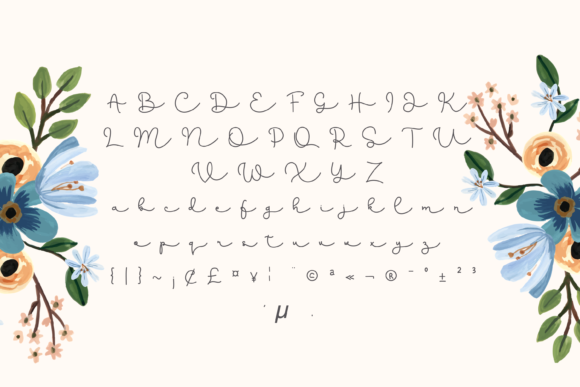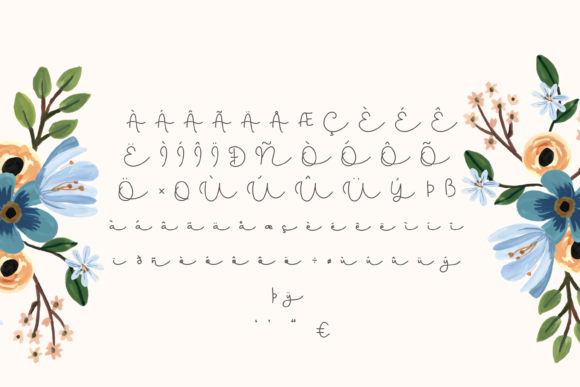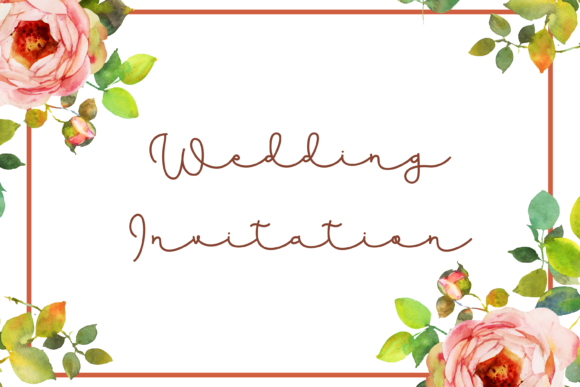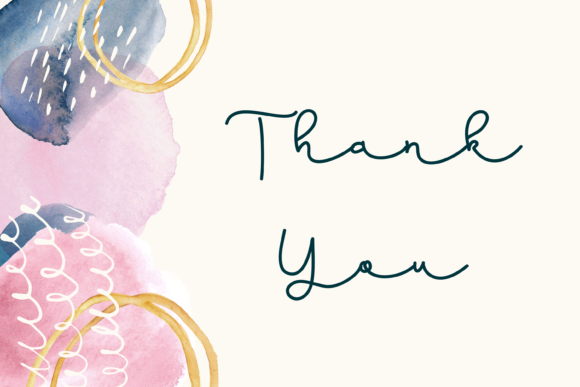
Discover the Timeless Elegance of Eilya Font
As a designer, have you ever found yourself pouring over fonts, searching for that perfect combination of style and sophistication to elevate your next project? For me, it’s the moment when a font’s beauty and functionality come together in perfect harmony. That’s exactly what I experienced when I stumbled upon the stunning Eilya Font.
Eilya Font is a beautifully refined script font, expertly crafted to exude a classy, elegant, and modern vibe. Its versatility makes it an ideal choice for a wide range of applications, from logos and branding to invitations, stationery, and social media posts. Whether you’re designing for a special occasion or creating a lasting impression, Eilya Font is the perfect tool to help you achieve your vision.
Eilya Font Key Features
- Font Style: Elegant, cursive script with a touch of sophistication
- Unique Characteristics: Distinctive flourishes and swashes add a touch of elegance and sophistication to any text
Eilya Font Review
I recently had the chance to work with the Eilya font, and I must say it’s been an interesting experience. Here’s my honest review.
The Eilya font has a unique and modern aesthetic that can add a touch of elegance to any design. Its sleek lines and clean shapes make it perfect for creating a professional and sophisticated look.
One of the standout features of Eilya is its excellent legibility. Even at smaller font sizes, the letters remain clear and easy to read, making it an excellent choice for body text or headlines.
The font family includes a range of weights and styles, giving you plenty of flexibility to create different looks and moods. From light and airy to bold and dramatic, Eilya has got you covered.
One of the main limitations of Eilya is its lack of personality. While it’s modern and sleek, it can also feel a bit generic and unoriginal. If you’re looking for a font that really stands out, you might want to look elsewhere.
Overall, I think Eilya is a solid choice for designers who want a modern and professional look. While it’s not without its limitations, it’s a reliable and versatile font that can add a touch of sophistication to any design. Just be aware of its potential drawbacks before committing to it.
Eilya Font is a versatile font that can be used for a variety of purposes, including:
1. Logo design: Eilya Font’s unique style makes it perfect for creating eye-catching logos.
2. Branding: Use Eilya Font consistently across all your marketing materials to create a strong brand identity.
3. Digital design: Eilya Font is ideal for use in digital design projects, such as website headers, social media graphics, and more.